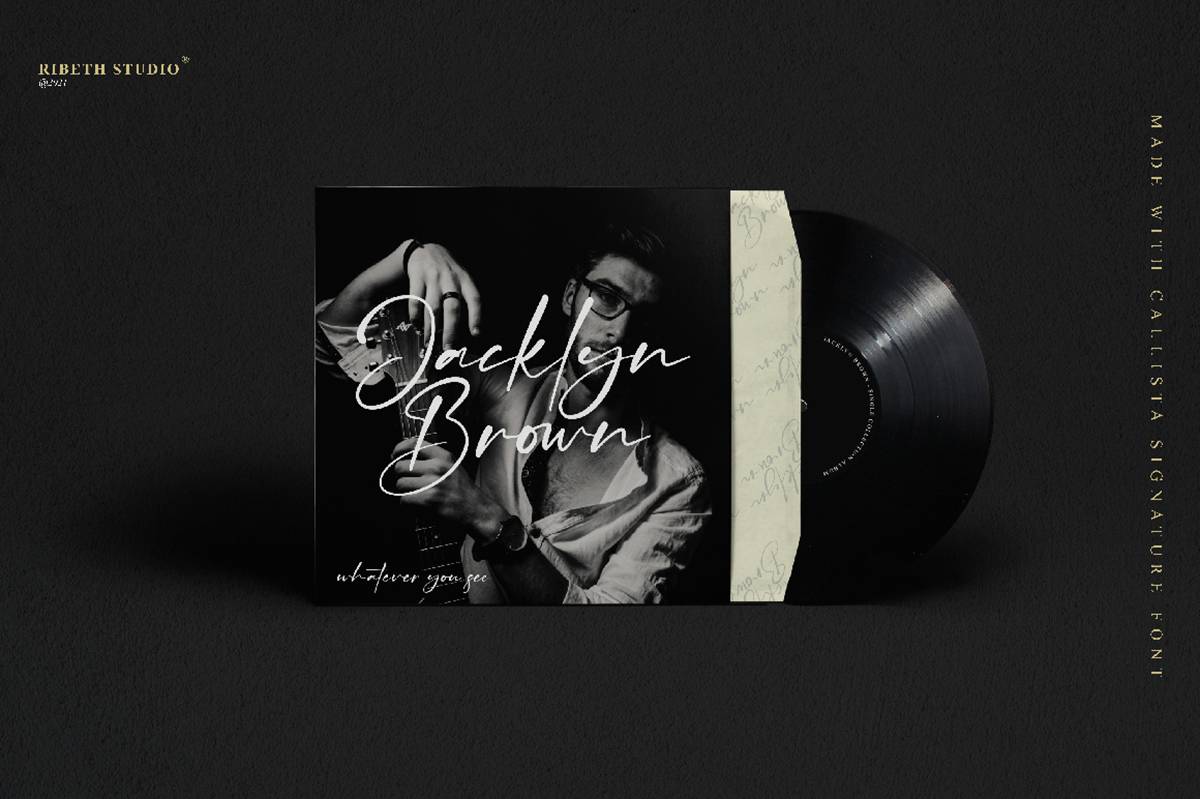
Callista is an elegant and modern script font with a handwritten, flowing style that combines fine, delicate strokes with subtle variations, giving it a natural and artistic feel. Its tall, slender letterforms and smooth connections make it perfect for stylish branding, invitations, and feminine design projects where a touch of sophistication and personality is desired. This font works well in headlines and logos, adding a graceful, personal touch that stands out without overpowering.
Callista Font
About Callista Font
| Font family | Callista Font |
| Designer | Pradana |